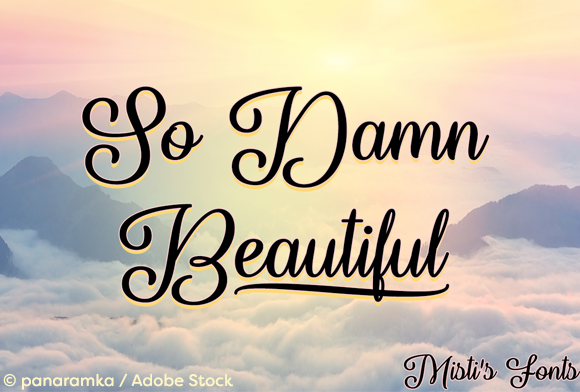
So Damn Beautiful Font
So Damn Beautiful is a script font that brings elegance and femininity to web design. Its flowing curves and stylish swashes make it ideal for headers, logos, and decorative elements. As a premium font in the Script Amp collection, it offers versatility for digital projects where visual appeal matters.
When used in web design, So Damn Beautiful adds a touch of sophistication. It works well in hero sections, CTA buttons, and branding materials. The font’s unique style helps create a memorable brand identity while maintaining readability across different screen sizes.
Using So Damn Beautiful in Web Design
Web designers often look for fonts that can enhance visual hierarchy without sacrificing clarity. So Damn Beautiful excels in this area, especially when used as a display font for headings and titles. Its ornate details are perfect for creative portfolios, boutique online stores, and coaching websites.
In landing pages, the font can draw attention to key messages. For example, using it in a product headline or course title can guide user focus and improve engagement. When paired with a clean sans serif for body text, it creates a balanced layout that feels both modern and elegant.
For online shops, So Damn Beautiful can elevate banners and product titles. It adds a personal, handcrafted feel that resonates with customers looking for unique, high-quality products. In blog headers, it sets a tone of creativity and professionalism, making content more inviting.
Readability and Visual Hierarchy
While So Damn Beautiful is a decorative font, its legibility remains strong in appropriate contexts. On mobile screens, it works best in larger sizes and short phrases. Avoid using it for long paragraphs, as the intricate details may reduce readability.
When designing for dark backgrounds or image overlays, consider adjusting the font color to ensure contrast. Lighter shades or white text often work best. For small buttons, use the font sparingly to maintain clarity and usability.
The font’s swashes and underline features add visual interest without overwhelming the layout. These elements help define section headings and reinforce brand personality, making it a powerful tool for digital storytelling.
Font Pairing and Brand Identity
Pairing So Damn Beautiful with a simple sans serif or serif font creates a harmonious balance. For instance, combining it with a clean sans serif like Open Sans or Lato ensures that body copy remains easy to read while the script font stands out for emphasis.
For editorial designs, pairing it with a serif font like Georgia or Merriweather can evoke a classic, refined aesthetic. This combination is great for blogs, magazines, or content-driven websites that prioritize a polished look.
When building a brand kit, So Damn Beautiful can serve as the primary display font. It supports a cohesive identity across websites, social media graphics, and marketing materials. Consistent use of the font strengthens brand recognition and trust.
Practical Applications and Commercial Use
So Damn Beautiful is suitable for a variety of digital projects. It shines in creative portfolios, where it can highlight project titles and client names. For SaaS founders and online store owners, it adds a distinctive flair to headlines and call-to-action buttons.
For digital product creators, So Damn Beautiful offers a way to express personality and style. Whether used in app interfaces, online courses, or brand assets, it enhances the overall user experience by reinforcing the brand’s tone and values.
Final Thoughts
So Damn Beautiful is more than just a pretty font—it’s a tool for creating visually compelling web experiences. Its ability to blend beauty with functionality makes it a valuable asset for web designers and digital creators. By using it thoughtfully, you can elevate your designs and build stronger connections with your audience.